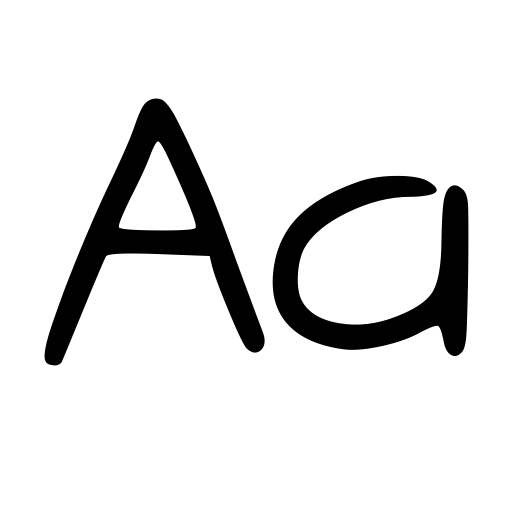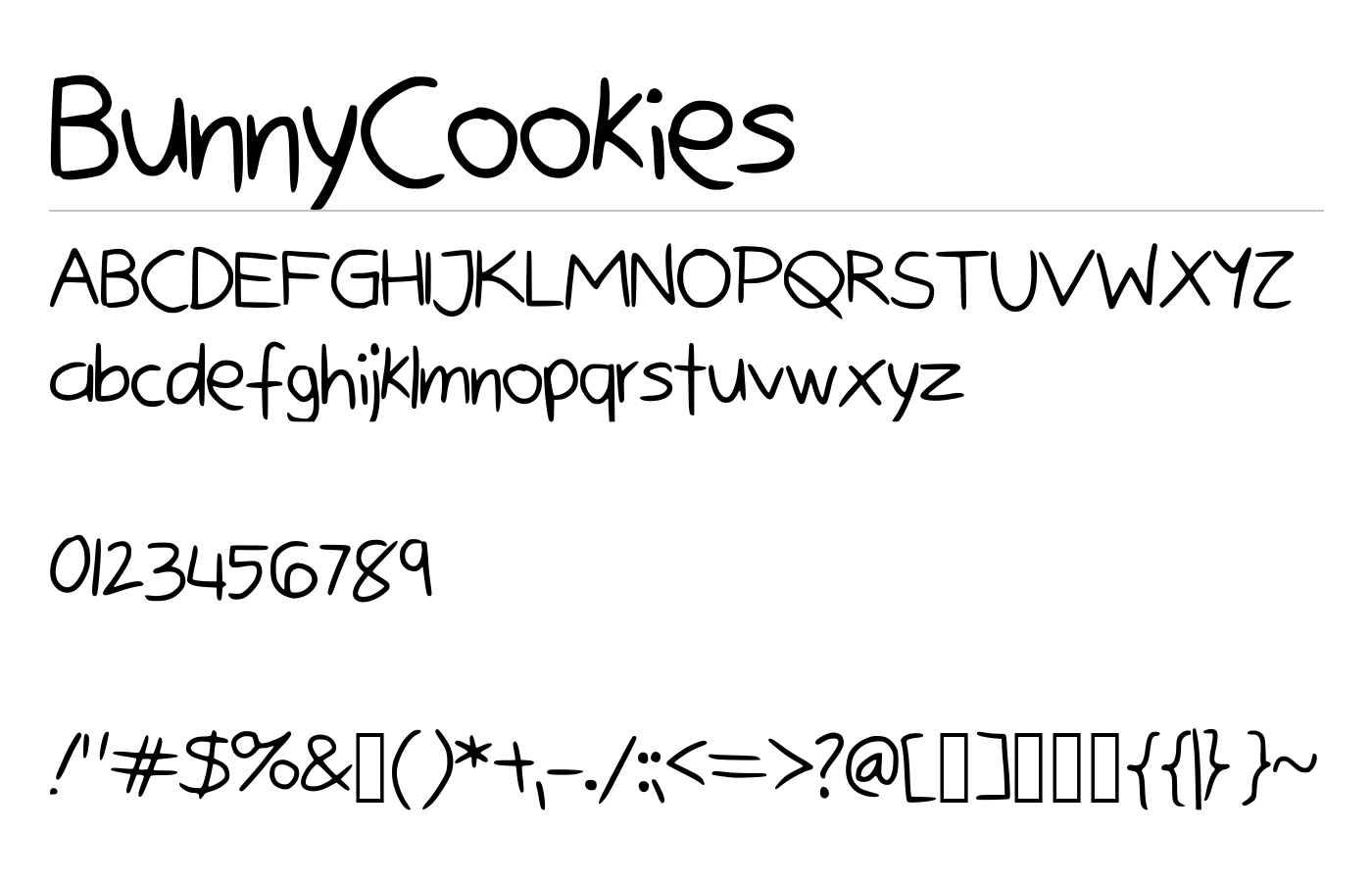
BunnyCookies is a playful and casual handwritten sans serif font with a slim, slightly irregular stroke that gives it a friendly, approachable feel. Its tall x-height and simple rounded letterforms make it clear and easy to read, perfect for informal designs and youthful branding. This font works well for children's books, fun packaging, and any project that benefits from a lighthearted, whimsical touch.
BunnyCookies Font